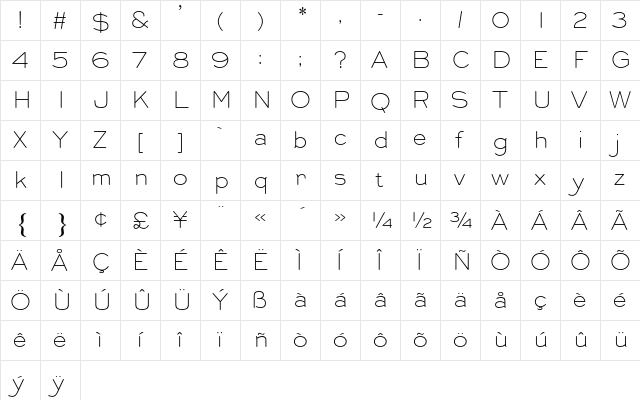
Burin Sans AT Regular
Design Context for Burin Sans AT Typeface
Burin Sans AT offers clean, dependable letterforms without strong stylistic allegiance, making it a practical choice for designers who need flexibility.
Pro Tip: Use Burin Sans AT in both headline and body roles to test its range before committing to a single application.